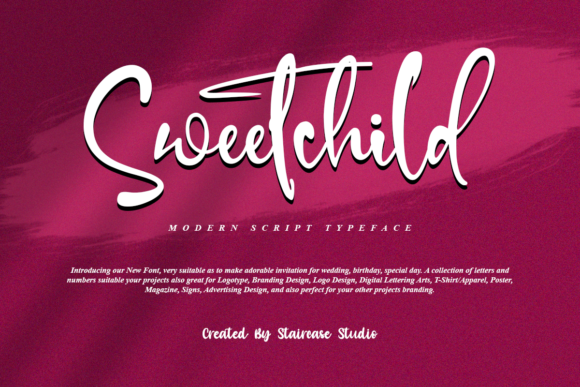
Unleash the Enchantment of Sweetchild: A Refined Script Font That Captures Hearts
Journey into the realm of typography with Sweetchild, a script font that embodies elegance and grace. Its meticulously crafted curves and delicate strokes evoke a sense of sophistication, inviting you to create designs that speak to the heart.
With a touch of nostalgia and a hint of modernity, Sweetchild effortlessly blends timeless charm with contemporary flair. Its versatility shines through, making it the perfect choice for a plethora of projects, from heartfelt wedding invitations to captivating social media posts.
Elevate Your Designs with Sweetchild's Allure:
1. Timeless Elegance:
Embrace the enduring beauty of Sweetchild, a font that transcends time. Its classic lines and refined details add a touch of sophistication to any project, leaving a lasting impression.
2. Versatility Unbound:
Experience the limitless possibilities of Sweetchild. Its diverse range of applications makes it an indispensable tool for designers. From charming logos to captivating branding, from heartfelt invitations to stunning stationery, Sweetchild effortlessly adapts to your creative vision.
3. Creative Expression Unleashed:
Unlock your imagination with Sweetchild's boundless potential. Let your creativity flow as you craft designs that capture attention and ignite emotions. Whether you're creating a captivating brochure or designing an unforgettable wedding invitation, Sweetchild becomes your muse, guiding you toward design excellence.
4. Love at First Sight:
Fall in love with Sweetchild's captivating aesthetics. Its elegant curves and delicate strokes create an irresistible charm that draws the eye and leaves a lasting impression.
Indulge in Sweetchild's Exquisite Charm:
Sweetchild's allure lies in its ability to transform ordinary designs into captivating masterpieces. Its versatility extends from logos and branding to invitations and stationery, making it the perfect choice for designers seeking to captivate their audience.
With Sweetchild as your creative companion, you'll embark on a journey of design excellence, crafting projects that resonate with beauty and sophistication. Experience the transformative power of Sweetchild and witness the magic unfold as your designs come to life.